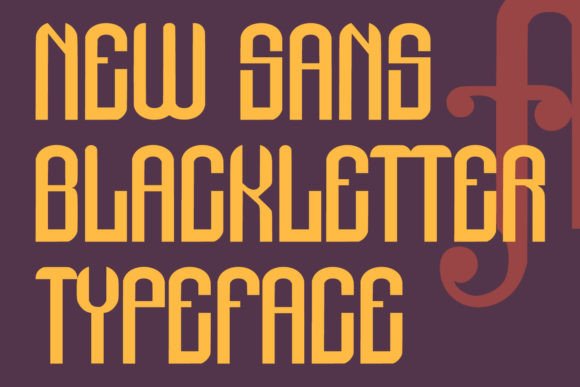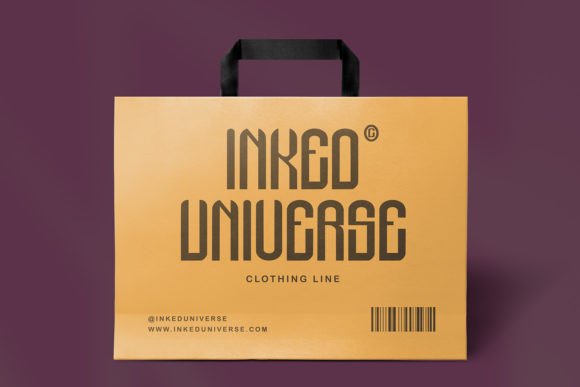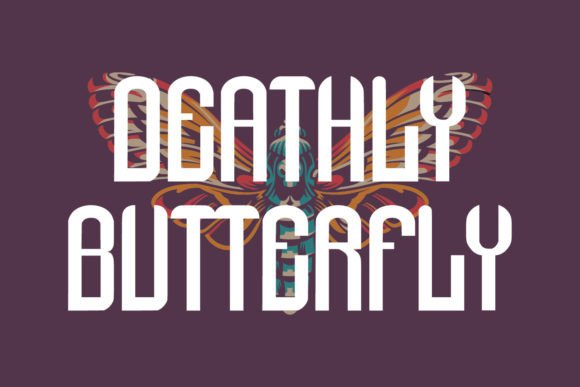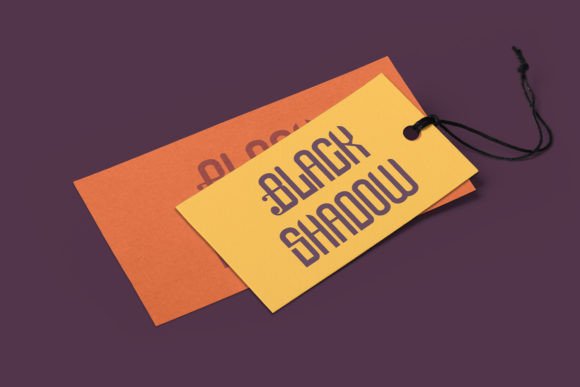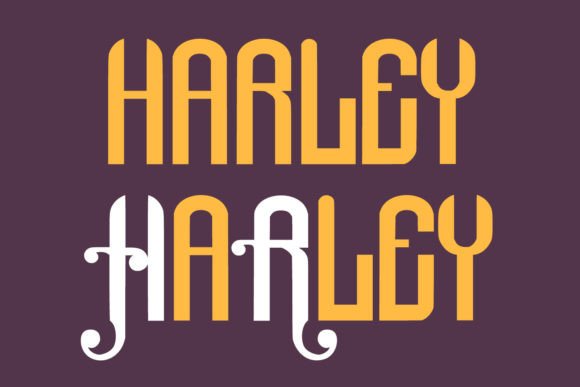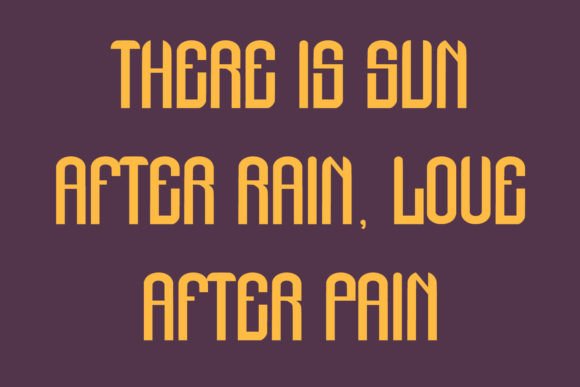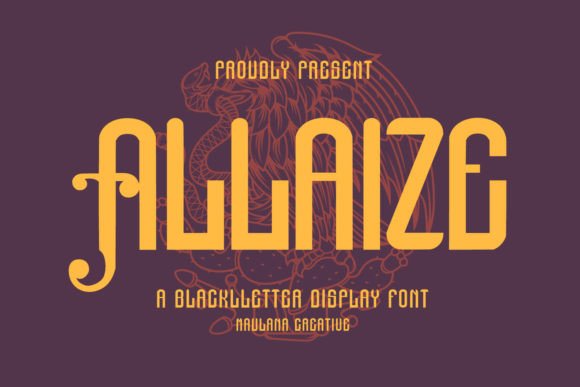
Introducing Allaize Font: A Modern Twist on Traditional Blackletter Typography
In the world of typography, blackletter fonts have always been a staple for designers looking to add a touch of elegance and sophistication to their projects. However, with the ever-evolving landscape of design, it’s not uncommon for traditional fonts to get a modern makeover. That’s where Allaize Font comes in – a bold and modern blackletter font that seamlessly blends traditional Germanic script with a contemporary edge.
The Unique Characteristics of Allaize Font
Allaize Font is a game-changer for designers looking for a bold and assertive typography solution. Its sharp angles and strong lines create a powerful look that’s perfect for branding, packaging, and designs that require a bold statement. The font’s unique characteristics make it stand out from traditional blackletter fonts, giving it a distinctive edge that’s sure to capture attention.
One of the most striking features of Allaize Font is its ability to add a sophisticated and modern feel to any project. Whether you’re working on a luxury brand identity, a high-end product packaging, or a bold advertising campaign, Allaize Font is the perfect choice. Its modern twist on traditional blackletter typography makes it versatile enough to be used in a wide range of design applications.
What Makes Allaize Font Special?
So, what sets Allaize Font apart from other blackletter fonts? For starters, it’s PUA (Private Use Area) encoded, which means you can access all the delightful glyphs and swashes effortlessly. This makes it incredibly easy to use and customize, even for designers who are new to working with blackletter fonts.
Another key feature of Allaize Font is its extensive character set. With a wide range of glyphs, swashes, and alternates, you can create stunning typography that’s tailored to your specific design needs. Whether you’re looking to add a touch of elegance or a bold statement, Allaize Font has got you covered.
Allaize Font is a dream come true for designers and crafters who are looking for a unique and versatile typography solution. Whether you’re working on a personal project or a client’s brief, this font is sure to impress. Its modern and bold aesthetic makes it perfect for a wide range of design applications, from branding and packaging to advertising and editorial design.
For crafters, Allaize Font is a great choice for creating stunning visual projects, such as handmade cards, invitations, and other paper crafts. Its bold and assertive look makes it perfect for adding a touch of drama and elegance to any project.
Tips for Using Allaize Font Effectively
To get the most out of Allaize Font, here are a few tips to keep in mind:
- Use it sparingly: Allaize Font is a bold and assertive font, so it’s best to use it sparingly to avoid overwhelming the reader. Use it for headings, titles, or key messages to create a lasting impression.
- Pair it with contrasting fonts: To create visual interest, pair Allaize Font with contrasting fonts that complement its bold and modern aesthetic.
- Experiment with glyphs and swashes: With its extensive character set, Allaize Font offers endless possibilities for customization. Experiment with different glyphs and swashes to create unique typography that reflects your brand’s personality.
In conclusion, Allaize Font is a modern and bold blackletter font that’s perfect for designers and crafters looking for a unique and versatile typography solution. Its sharp angles and strong lines create a powerful and assertive look that’s sure to capture attention. With its PUA encoding and extensive character set, Allaize Font is easy to use and customize, making it a great choice for a wide range of design applications. So why settle for ordinary typography when you can make a bold statement with Allaize Font?